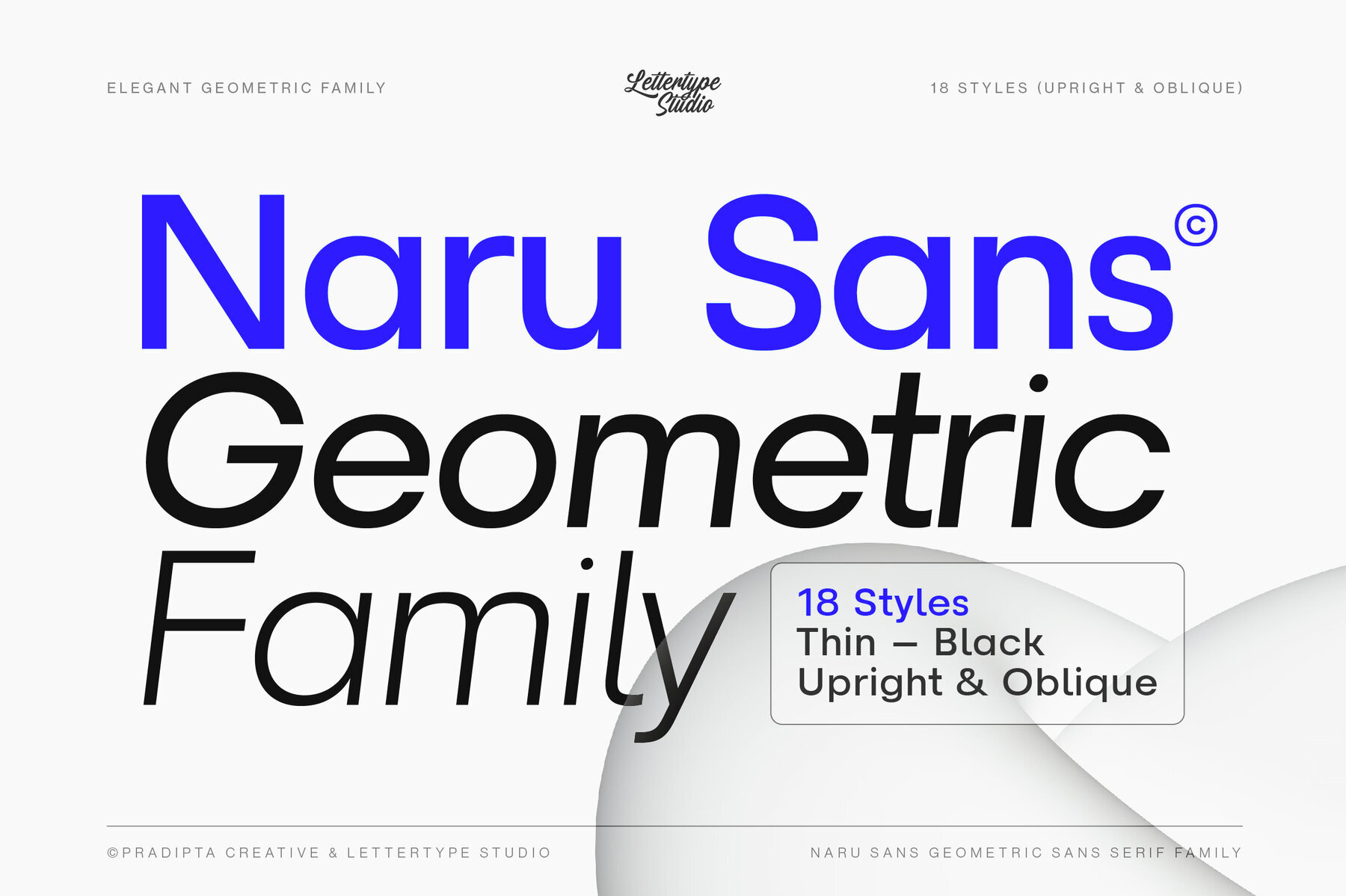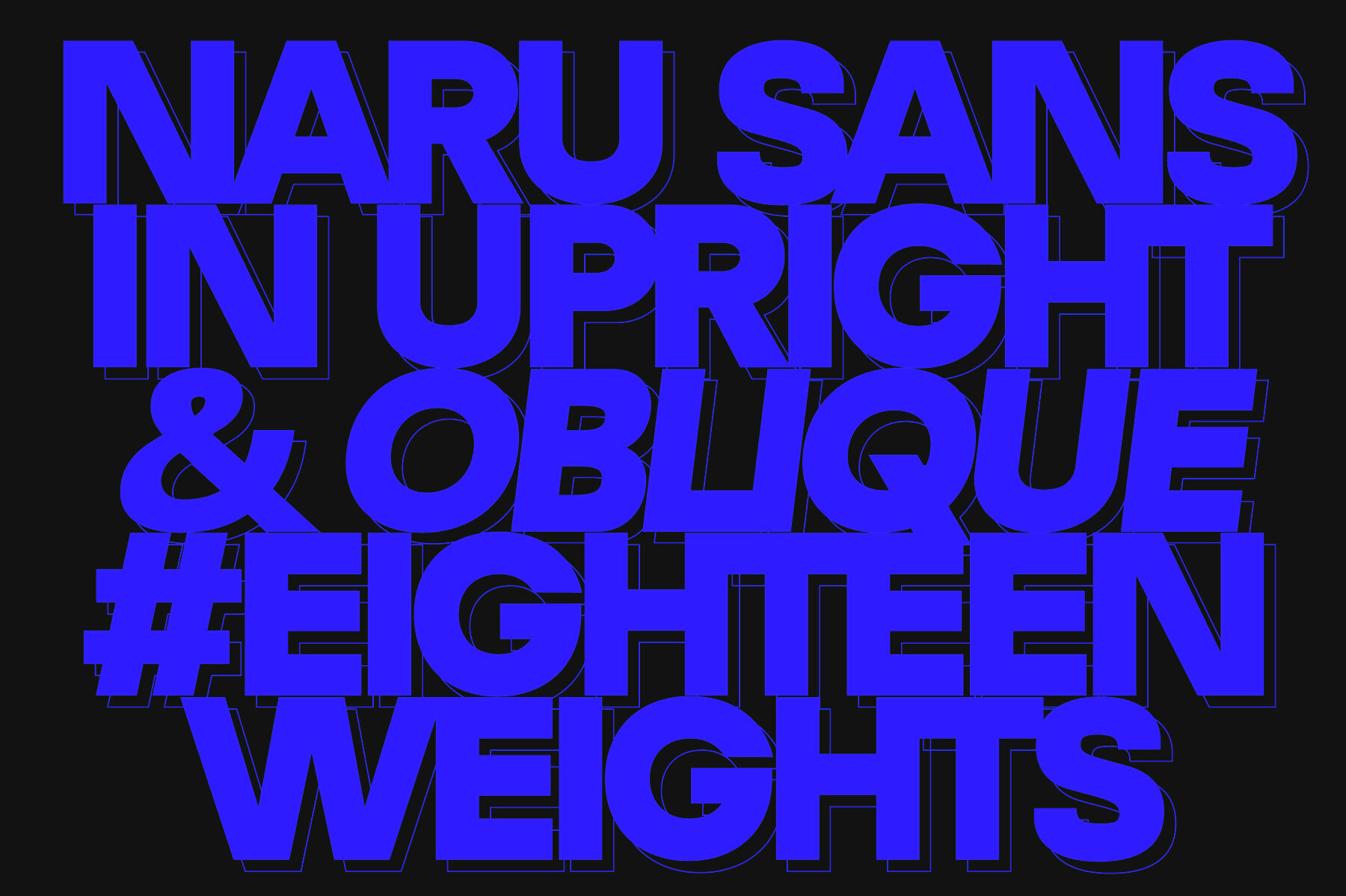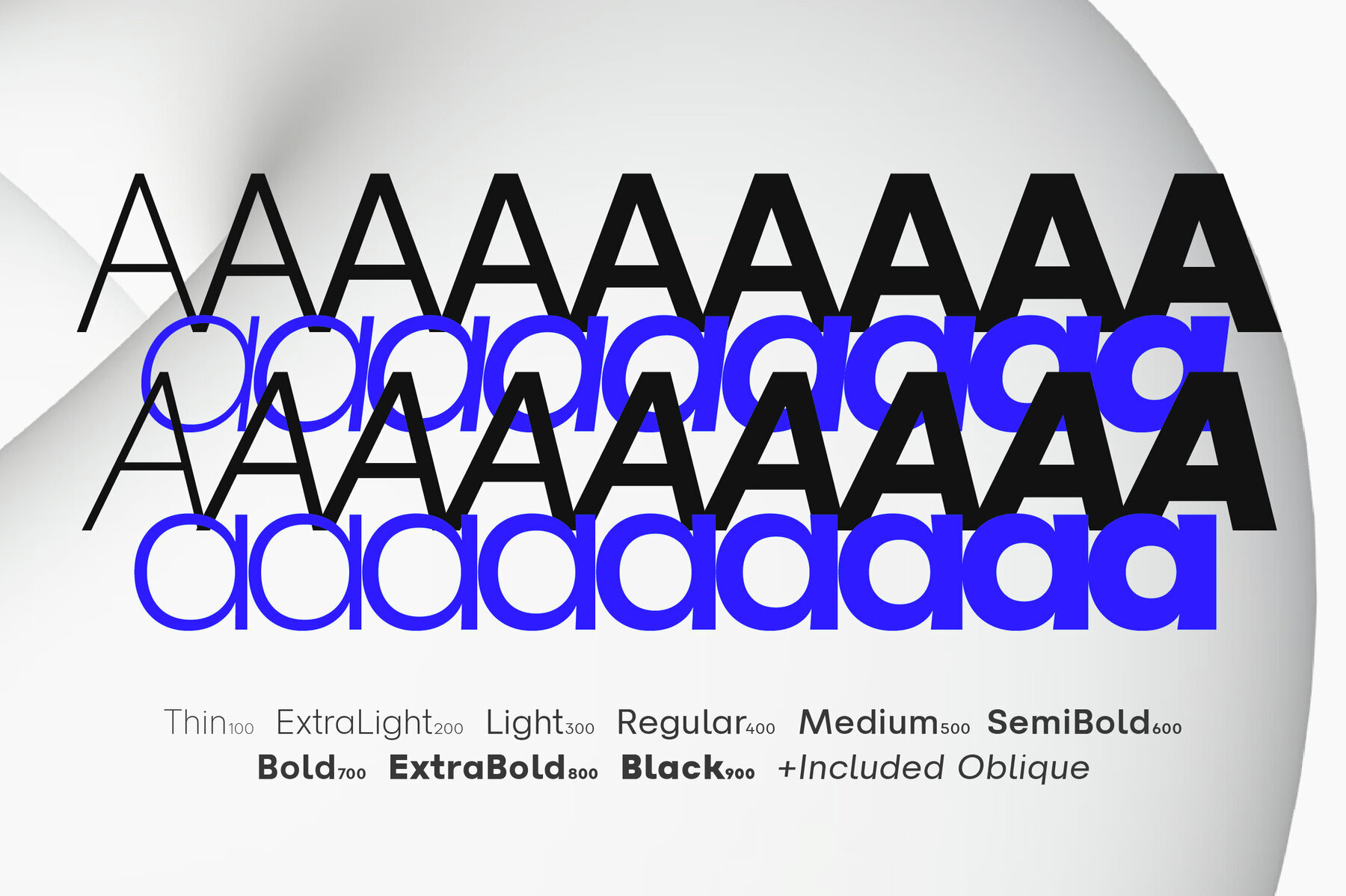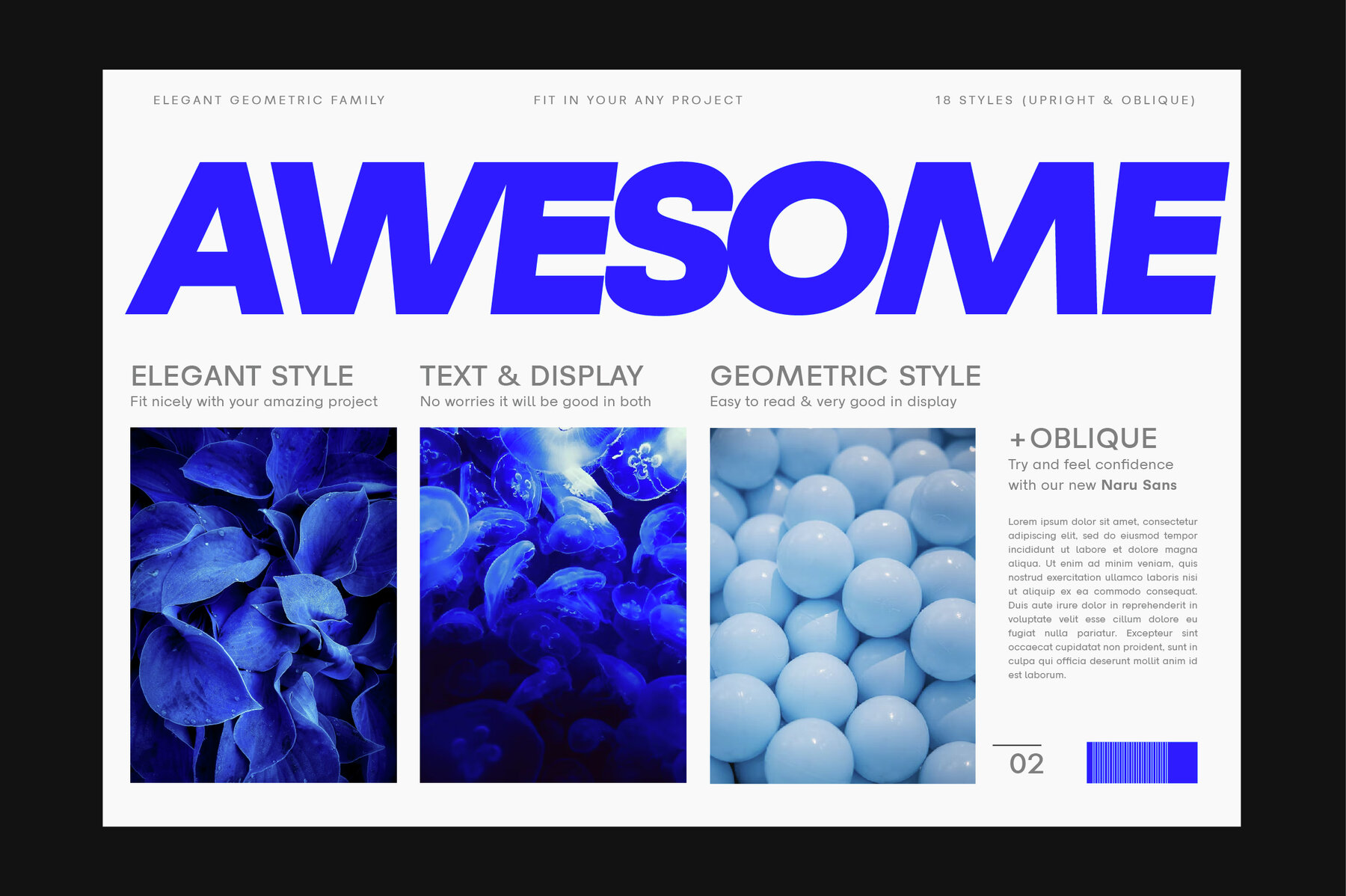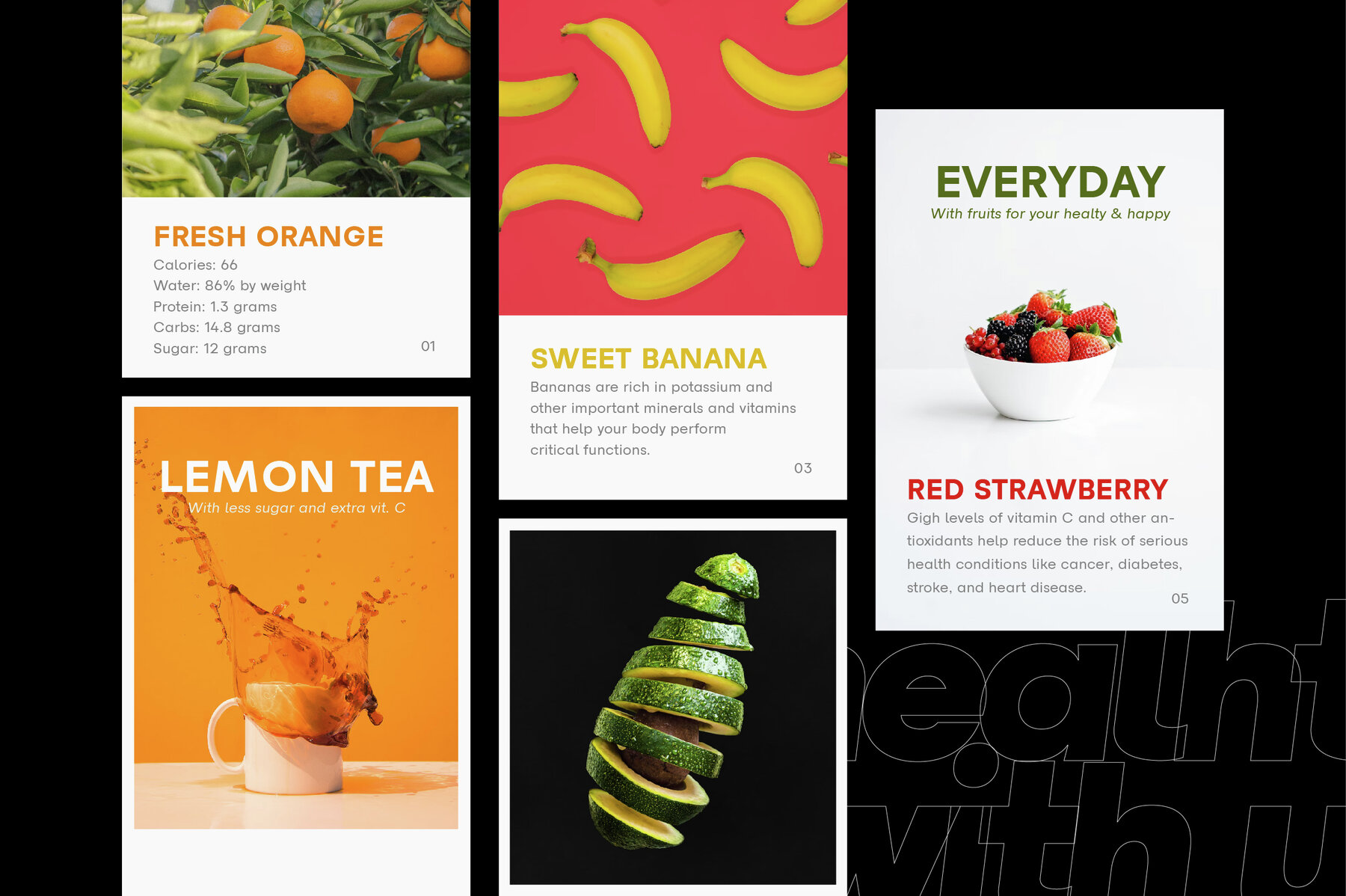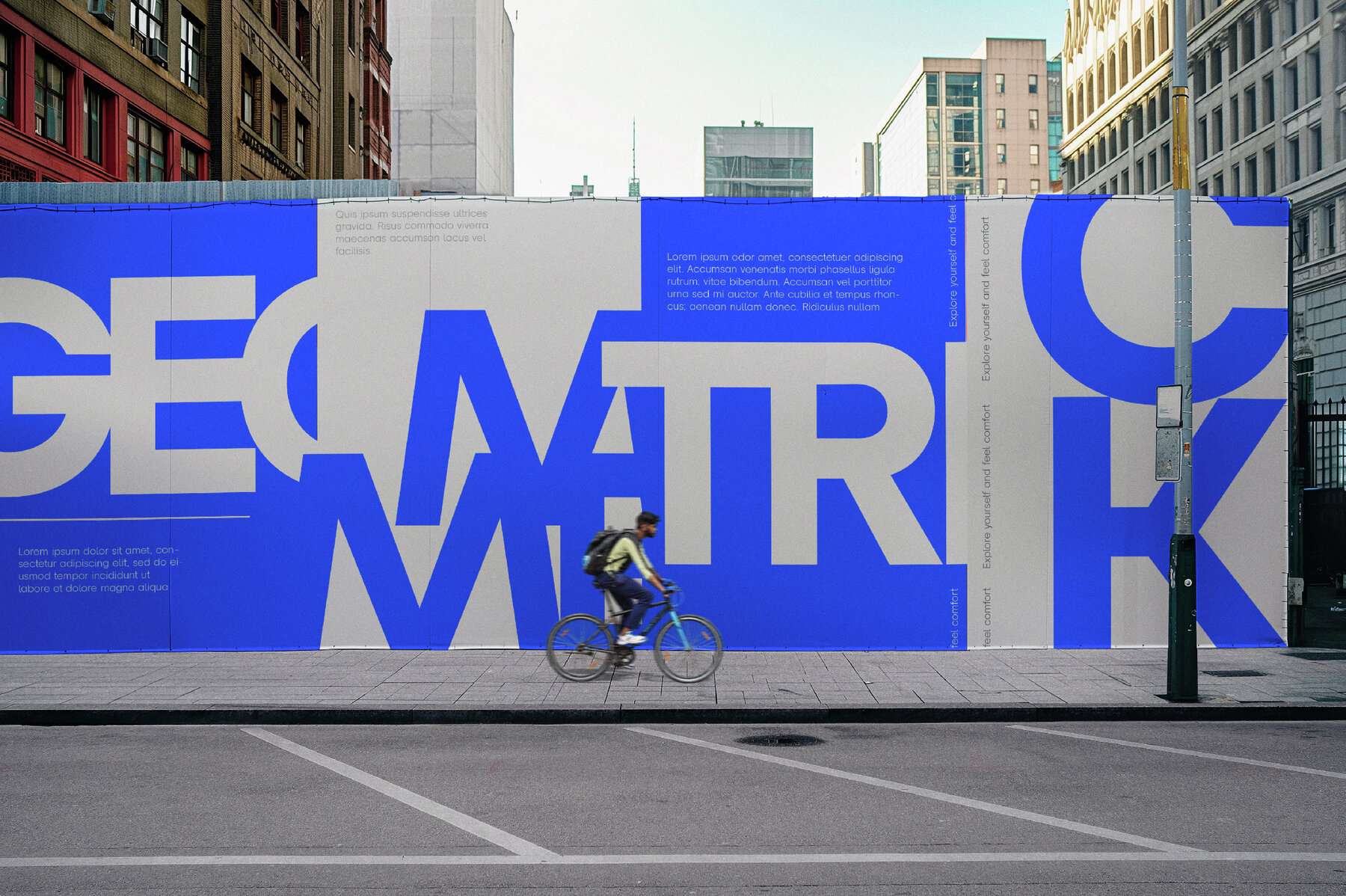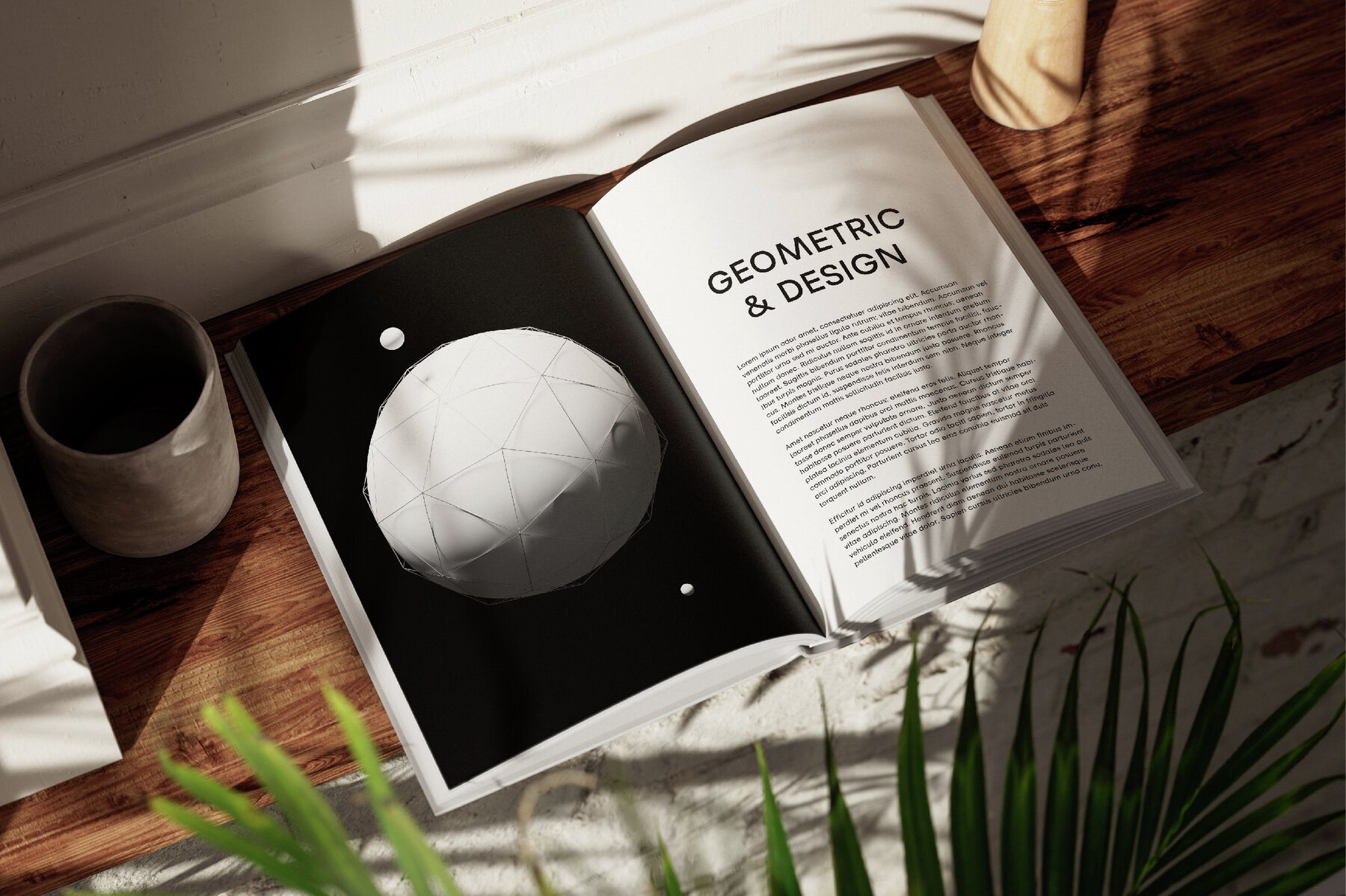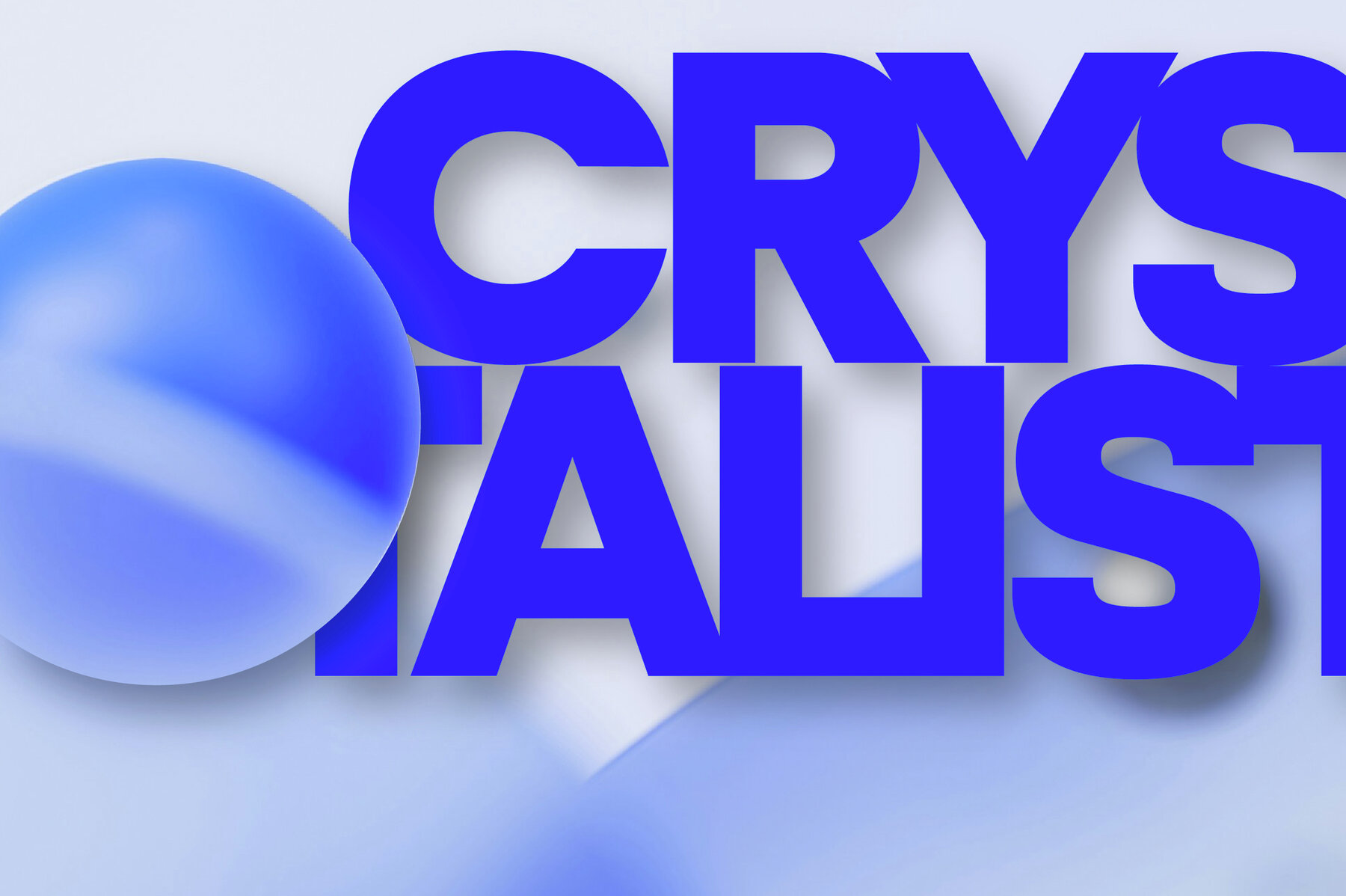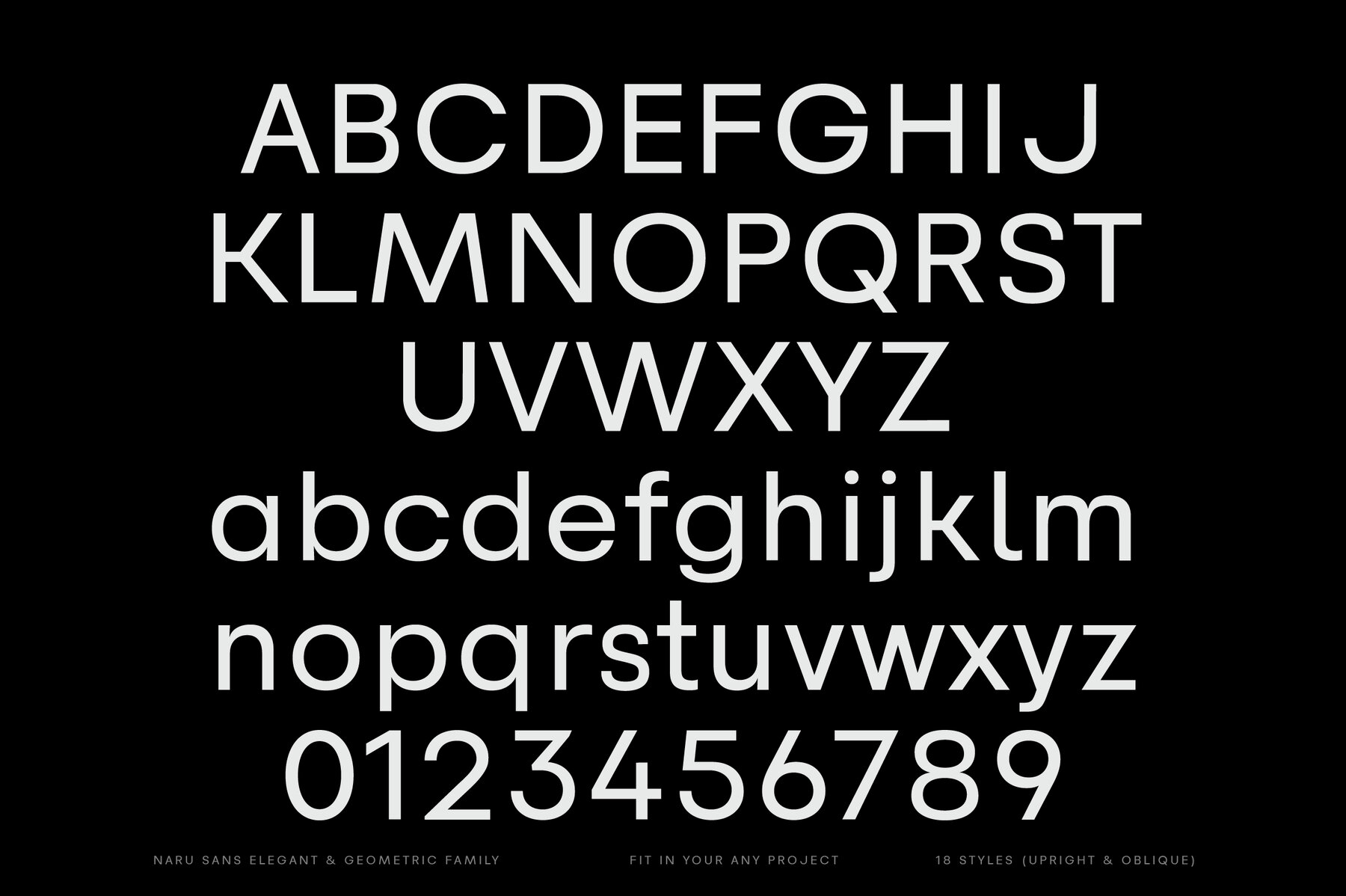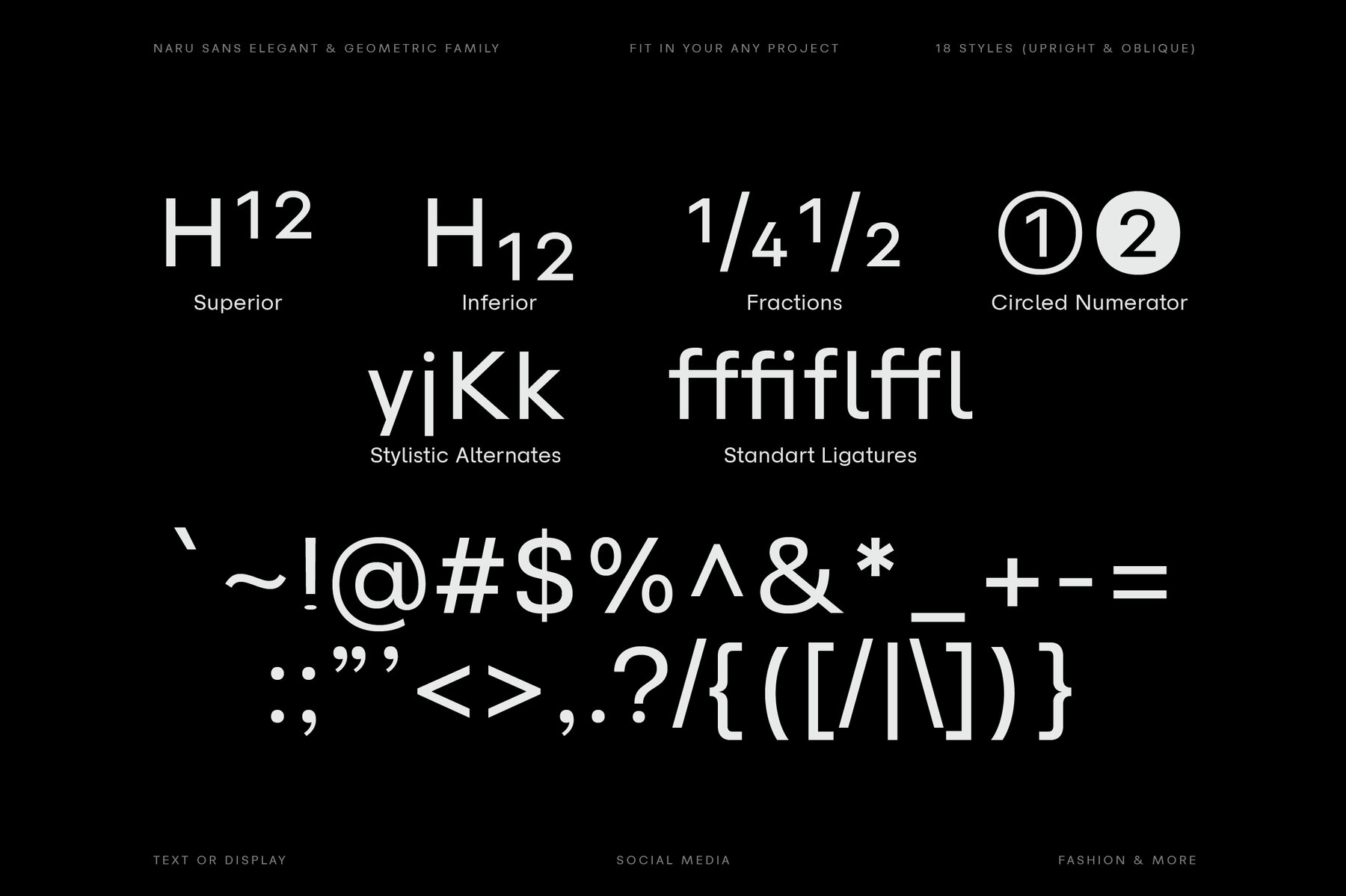
Naru Sans Font
Naru Sans is a modern sans-serif typeface that elegantly melds geometric design with subtle grotesque elements. This unique synthesis ensures both simplicity and character, making it an ideal choice for diverse design projects. Its well-thought-out proportions prioritize readability and enable seamless integration into a variety of creative contexts. This comprehensive font family offers 18 weights, ranging from thin to black, accompanied by oblique styles for added flexibility. The typeface includes OpenType features such as stylistic alternates, figure variations, and extensive Latin language support, enhancing its versatility and applicability in global projects.Naru Sans: A Blend of Geometric Precision and Grotesque Warmth